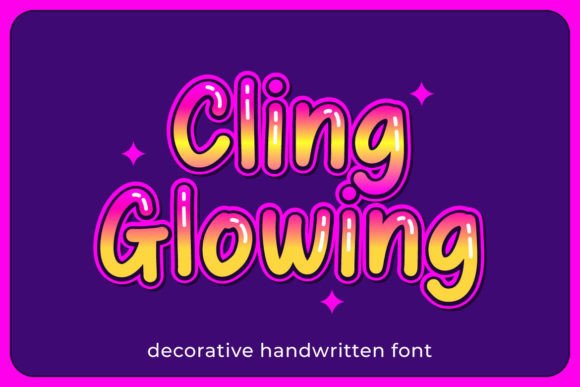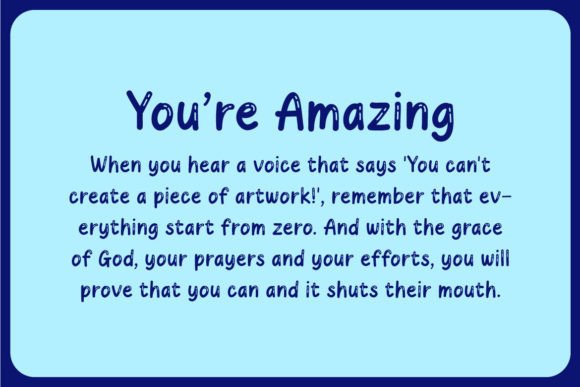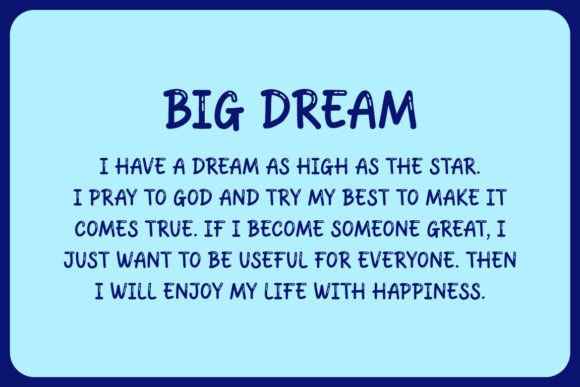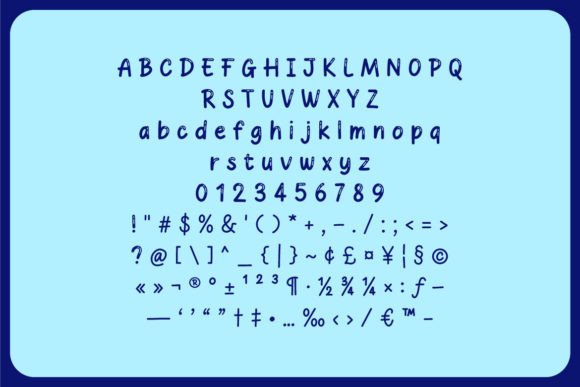
Introducing Cling Glowing Font: The Ultimate Cartoon Bubble Display Font
Are you a designer, crafty enthusiast, or simply someone who loves to add a touch of whimsy to their creative projects? Look no further than the Cling Glowing font! This delightful cartoon bubble display font is perfect for adding a pop of fun and personality to a wide range of applications, from storybooks and comic books to flyers, book titles, advertisements, social media content, logos, and so much more.
What is Cling Glowing Font?
Cling Glowing is a unique and eye-catching font that features a playful, cartoon bubble design. Its distinctive style is sure to grab attention and add a dash of excitement to any project. The font’s design is reminiscent of classic comic books and storybooks, making it an excellent choice for anyone looking to create a nostalgic or retro-inspired look.
What Can I Use Cling Glowing Font For?
The versatility of Cling Glowing font is one of its standout features. You can use it for a wide range of creative projects, including:
- Storybooks and children’s books: Add a touch of magic to your storybook with Cling Glowing font.
- Comic books and graphic novels: Create bold, eye-catching titles and captions with this fun font.
- School projects: Make your school projects stand out with a playful and engaging font.
- Flyers and brochures: Grab attention with Cling Glowing font and make your flyers and brochures more engaging.
- Book titles and covers: Use Cling Glowing font to create eye-catching book titles and covers.
- Advertisements: Add a touch of whimsy to your ads and make them more memorable.
- Social media content: Use Cling Glowing font to create engaging social media graphics and posts.
- Logos and branding: Create a unique and memorable logo with Cling Glowing font.
Why Choose Cling Glowing Font?
So, why should you choose Cling Glowing font for your next project? Here are just a few reasons:
- Unique and eye-catching design: Cling Glowing font features a distinctive cartoon bubble design that’s sure to grab attention.
- Versatile: Use Cling Glowing font for a wide range of creative projects, from storybooks to advertisements.
- Fun and playful: Add a touch of whimsy and personality to your projects with Cling Glowing font.
Tips for Using Cling Glowing Font
Here are a few tips for getting the most out of Cling Glowing font:
- Experiment with different colors: Cling Glowing font looks great in a variety of colors, so don’t be afraid to experiment and find the perfect hue for your project.
- Use it sparingly: While Cling Glowing font is fun and playful, it can be overwhelming if used too much. Use it sparingly to add emphasis and create visual interest.
- Pair it with other fonts: Cling Glowing font pairs well with a variety of other fonts, so don’t be afraid to experiment and find the perfect combination for your project.
Cling Glowing font is a fun and versatile cartoon bubble display font that’s perfect for adding a touch of whimsy and personality to a wide range of creative projects. With its unique and eye-catching design, ease of use, and versatility, Cling Glowing font is an excellent choice for designers, crafters, and anyone looking to add a little excitement to their work. So why wait? Download Cling Glowing font today and start creating!